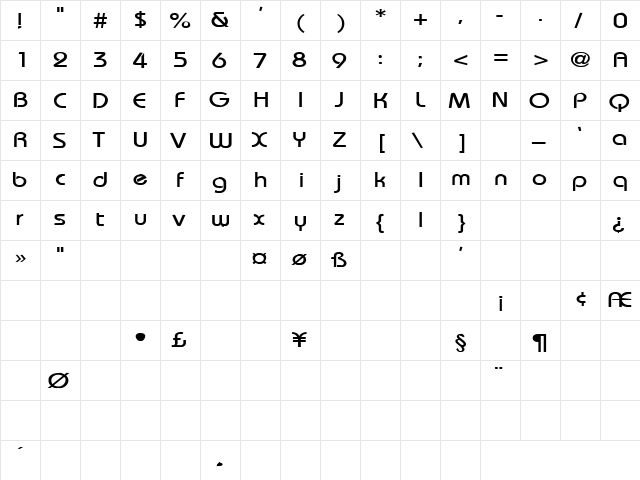
China Grove 3 Regular
Design Context for China Grove 3 Typeface
China Grove 3 offers clean, dependable letterforms without strong stylistic allegiance, making it a practical choice for designers who need flexibility.